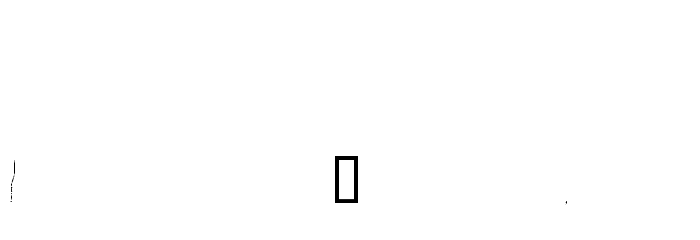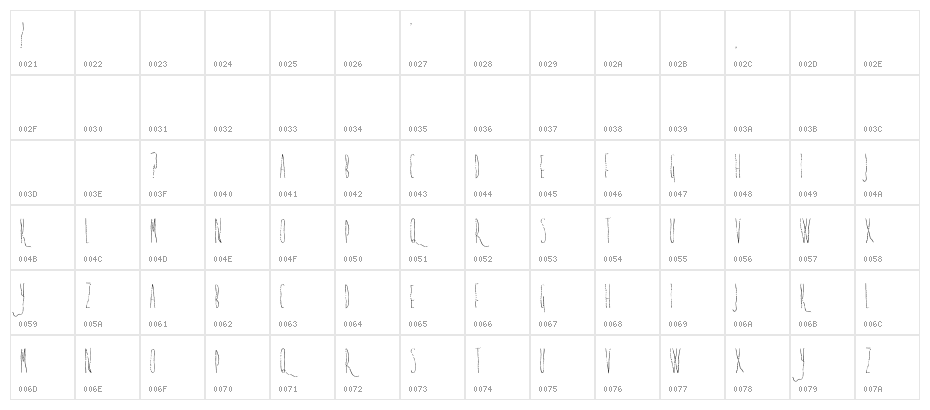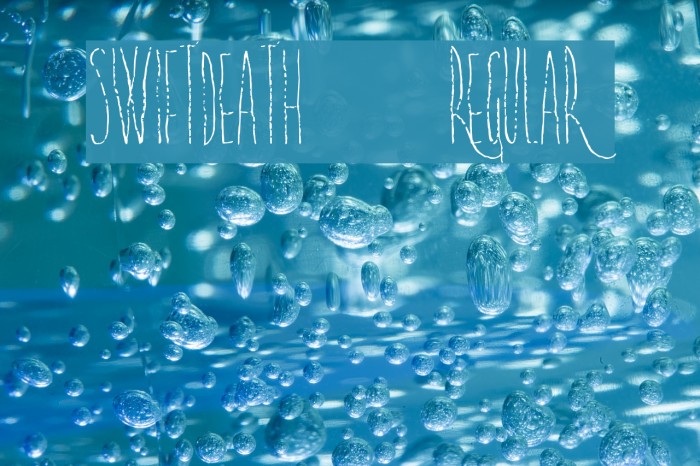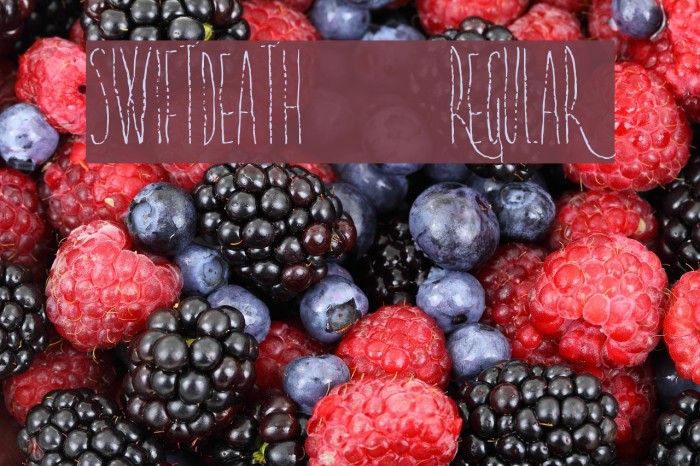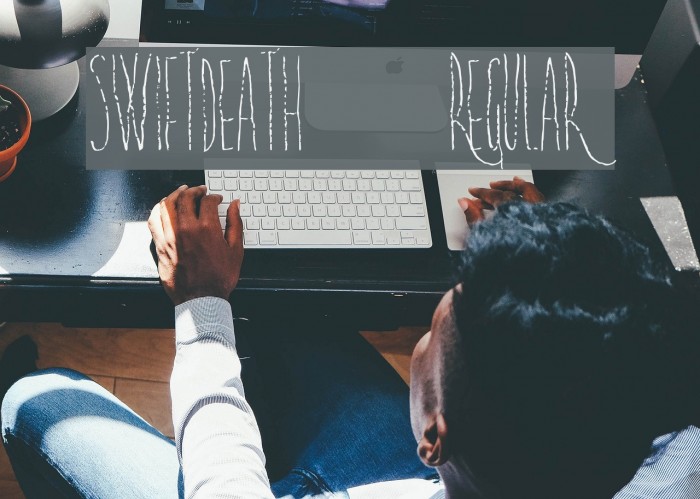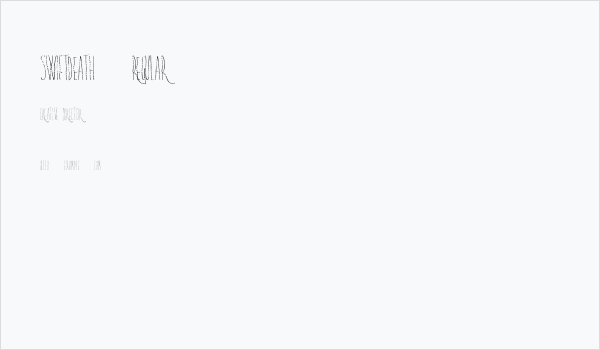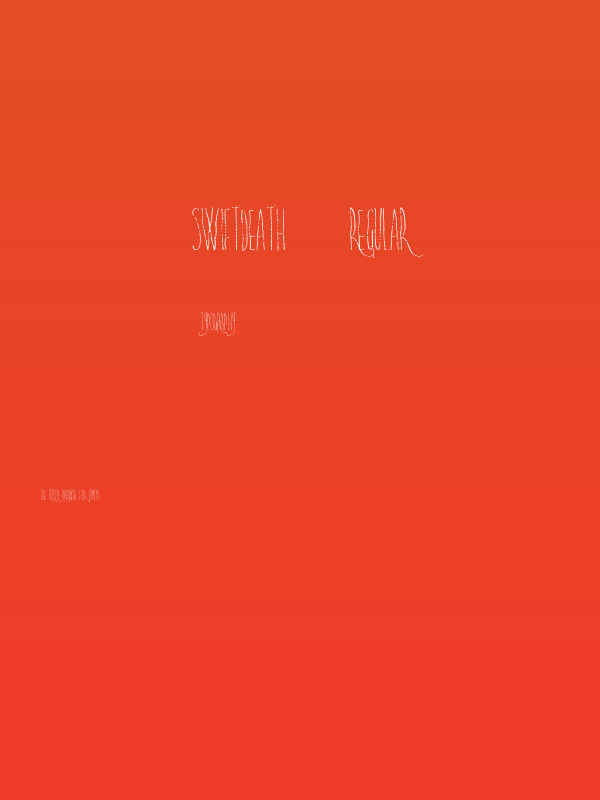
SwiftDeath-Regular Font
SwiftDeath-Regular Description
This font features a distinctive, edgy style with elongated, sharp strokes that give it a dramatic and intense appearance. The characters are tall and narrow, with a hand-drawn, slightly distressed texture that adds a sense of rawness and energy. The uppercase and lowercase letters maintain a consistent height, contributing to a cohesive look. The font's unique design elements make it stand out, with each letter exhibiting a sense of movement and dynamism. The overall aesthetic is bold and unconventional, perfect for projects that require a striking visual impact.
| Proposed Projects | Ideal for horror-themed posters, album covers, and edgy branding materials. |